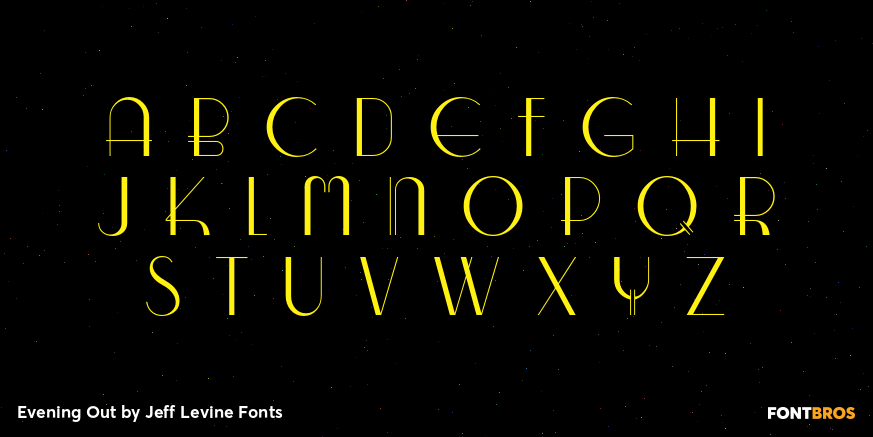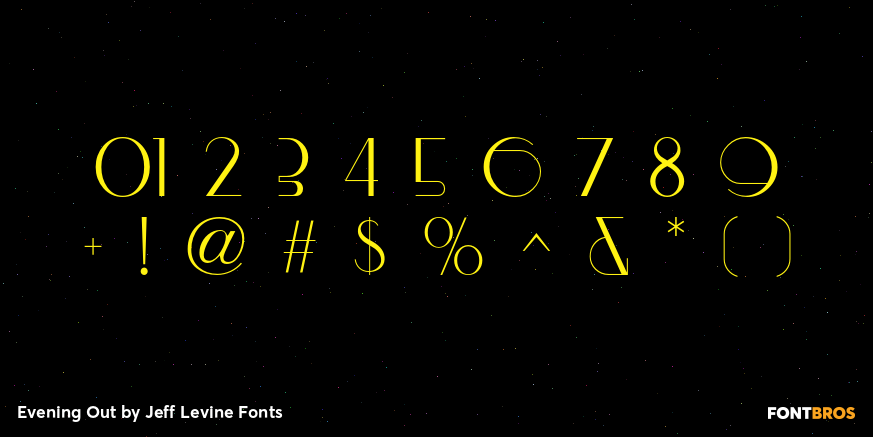
Evening Out
Based on an example of [circa] 1950 Finnish embroidery lettering, Evening Out JNL is a classic Art Deco design with contrasting thick and thin lines.
This elegant and stylish typeface is available in both regular and oblique versions.